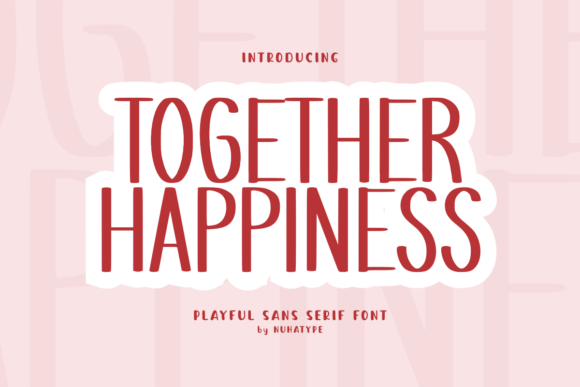
Together Happiness: A Warm Sans Serif for Branding
There’s something oddly comforting about opening a blank brand board and staring at it for a few minutes. It’s a moment of quiet creativity, where the first stroke of a logo or the first line of a tagline can set the tone for an entire brand identity. That’s exactly where I found myself recently, testing Together Happiness on a boutique identity project. The font immediately felt like a warm hug in a world of rigid typography.
A Font with Personality
Together Happiness is a cute handwriting font designed with a soft, friendly, and natural look. It brings a warm handcrafted feeling that works beautifully for craft projects, planners, stickers, and more. As a sans serif typeface, it maintains clarity while still retaining a handwritten charm. The curves are gentle, the spacing feels intentional, and the overall aesthetic is both approachable and inviting.
What makes this font stand out is its personality. It doesn’t feel like a generic sans serif; instead, it carries a sense of warmth and playfulness that’s perfect for brands looking to connect with their audience on a personal level. It’s the kind of font you’d expect to see on a handmade shop sign or a cozy café menu—something that feels lived-in and authentic.
Testing Together Happiness in Real Projects
I used Together Happiness in several design assets for the boutique project, including the logo draft, brand board, packaging mockup, business card, website header, and social media layout. Each time, the font performed well, especially when used as a headline or display text.
On the logo concept, it added a touch of whimsy without being too childish. When paired with a geometric sans serif for the supporting text, the contrast was clean and effective. For the packaging mockup, it worked beautifully on the product label, giving the brand a friendly and approachable feel. On the business card, it looked elegant yet casual, which suited the boutique’s vibe perfectly.
One of my favorite uses was on the website header. The font’s readability at larger sizes made it ideal for headlines, and its soft curves helped guide the eye across the page. On Instagram posts, it added a handcrafted quality that aligned with the brand’s aesthetic.
Font Pairing and Versatility
While Together Happiness shines as a display font, it’s also versatile enough to be used in different ways depending on the project. As a headline font, it adds character and visual interest. As an accent font, it can highlight key phrases or calls to action. In some cases, it even works as a short phrase font, especially when used in logos or branding elements.
When pairing Together Happiness, I found that it pairs well with a modern sans serif for balance. A clean, structured font like Montserrat or Futura can complement its warmth without overpowering it. For a more playful look, a script or handwritten font could work, but I found that it often felt too busy when used together. Instead, I leaned into a minimalist approach, using it alongside a simple geometric sans serif for a cohesive and professional look.
It’s important to note that Together Happiness isn’t always the best choice for long body text or small sizes. Its soft curves and organic shapes can make it less readable in tight spaces. That said, it’s not a problem if used strategically—like on a tagline or a call-to-action button.
Considerations and Practical Tips
Also, don’t overlook the importance of testing the font in different contexts. How does it look on a shop sign? Does it hold up on a printed card? What about on a digital platform like a website or social media post? Testing these scenarios will help you determine whether the font is the right fit for your brand.
Finally, consider how the font influences brand perception. A warm, friendly typeface like Together Happiness can create a sense of trust and approachability. It’s ideal for brands that want to feel personal and connected to their audience.
In summary, Together Happiness is a great choice for designers looking to add a touch of warmth and personality to their projects. Whether you’re working on a boutique identity, a café refresh, or a handmade shop branding, this font can bring a unique and inviting feel to your design work. Just remember to use it wisely, test it thoroughly, and pair it thoughtfully with other fonts to create a cohesive and impactful brand identity.